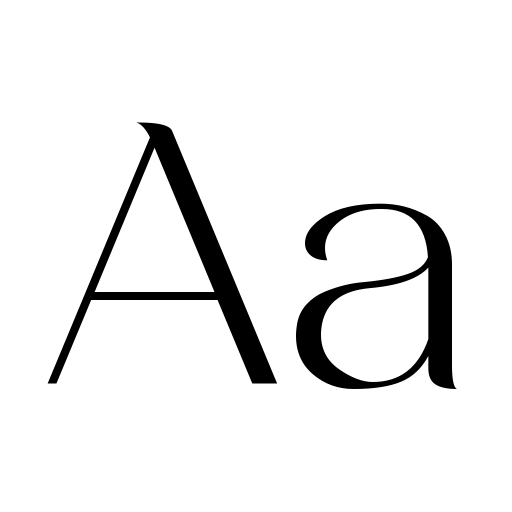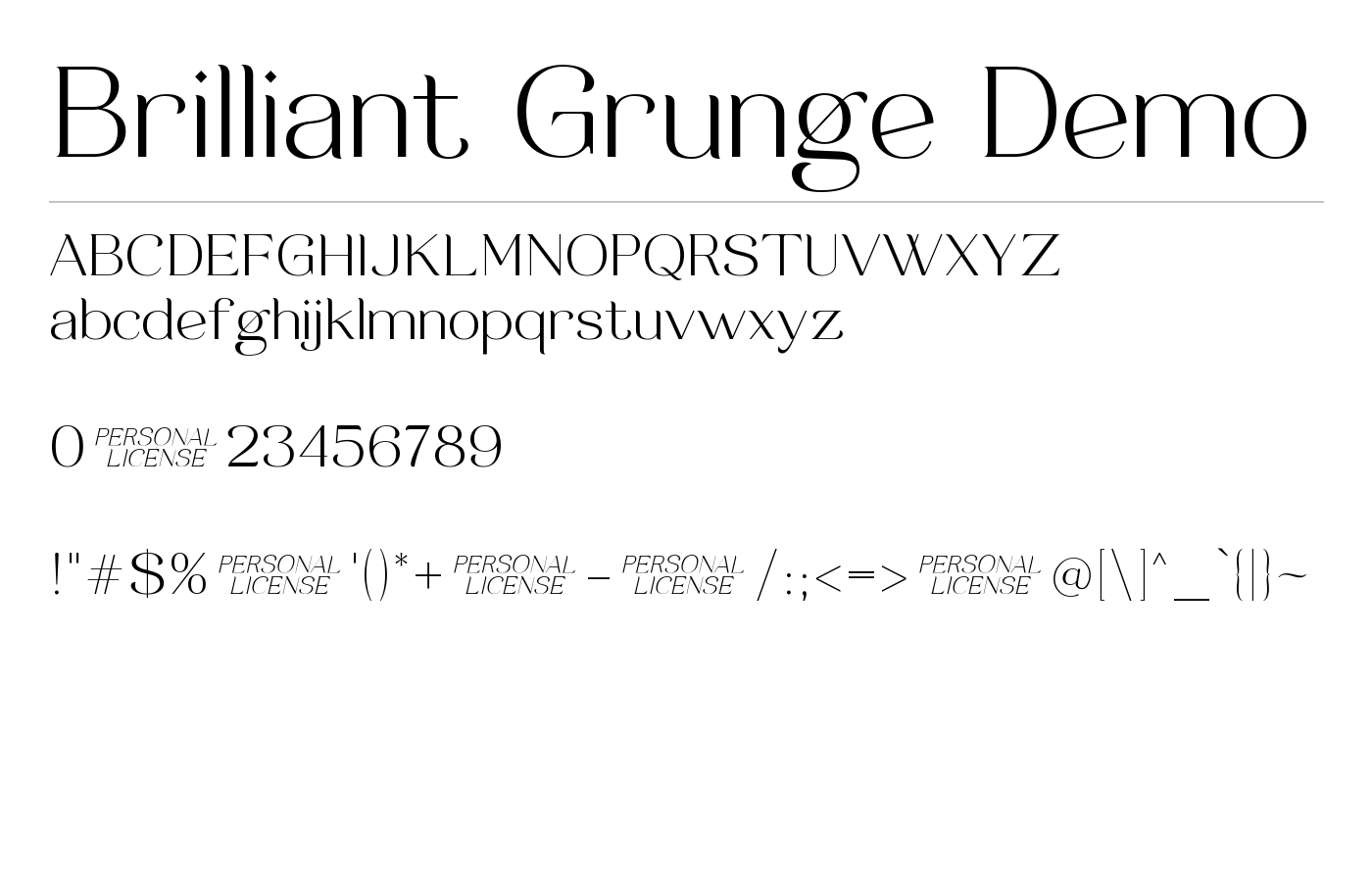
Brilliant Grunge Demo is a delicate, modern serif font featuring high contrast strokes and a slender, elegant structure that conveys sophistication with a subtle artistic flair. Its unique letterforms, such as the curved tails and thin, sharp serifs, give it a refined yet slightly unconventional personality, making it perfect for upscale branding, editorial headlines, and creative projects seeking a stylish and graceful touch. This font works especially well where elegance and a hint of individuality are desired, such as fashion magazines or luxury product packaging.
Brilliant Grunge Demo Font
About Brilliant Grunge Demo Font